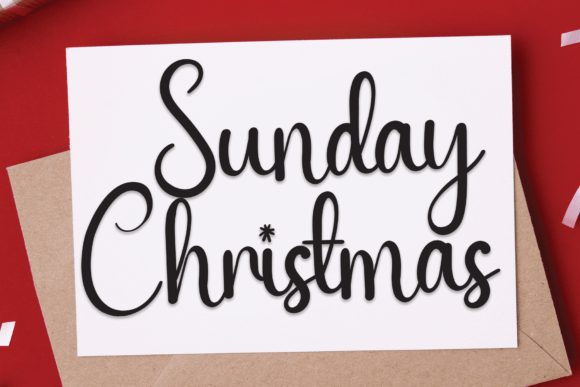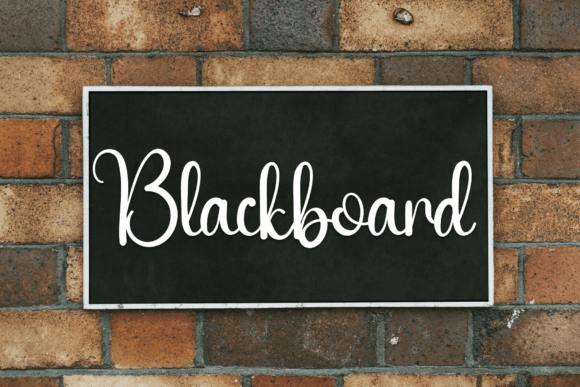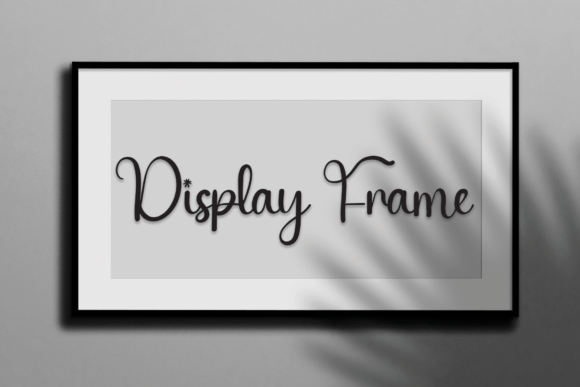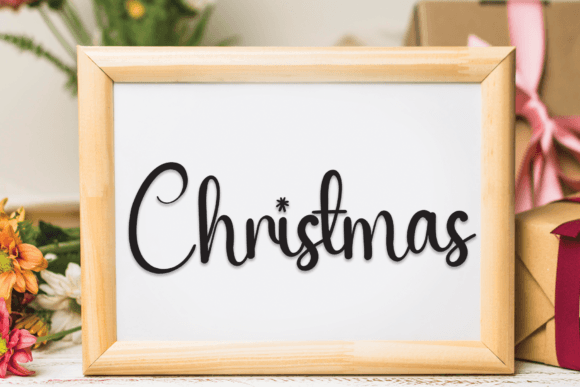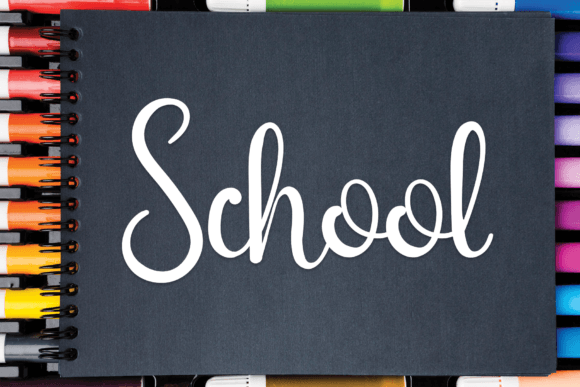
Sunday Christmas Font
Add a warm and festive touch to your holiday projects with the Sunday Christmas font. This simple and friendly handwritten script is perfect for a wide range of occasions. Whether you’re creating crafts, digital designs, presentations, or greeting cards, Sunday Christmas is an excellent choice.
The Sunday Christmas font features clean and easy-to-read strokes that add charm and friendliness to your designs. Its versatile style makes it suitable for various creative uses, helping your projects feel personal and inviting during the holiday season.
You can use the Sunday Christmas font for crafting, digital artwork, presentations, and holiday card-making. Its casual yet neat look makes it ideal for projects aiming to connect with audiences through a natural handwritten style. This font is perfect for anyone looking for a warm and approachable handwritten script.
Despite its simple design, the Sunday Christmas font offers excellent readability across different sizes. Whether used for bold headlines or smaller text, it guarantees clarity and style.
Using the Sunday Christmasfont will add a genuine and inviting character to your holiday projects. If you want a handwritten font that is versatile and easy to use, this font is a great addition to your collection.
In summary, the Sunday Christmasfont is a simple, friendly, and versatile handwritten script. Perfect for crafts, digital designs, presentations, and greeting cards, it brings warmth and holiday spirit to every project. Download it today and make your designs more festive with Sunday Christmas.